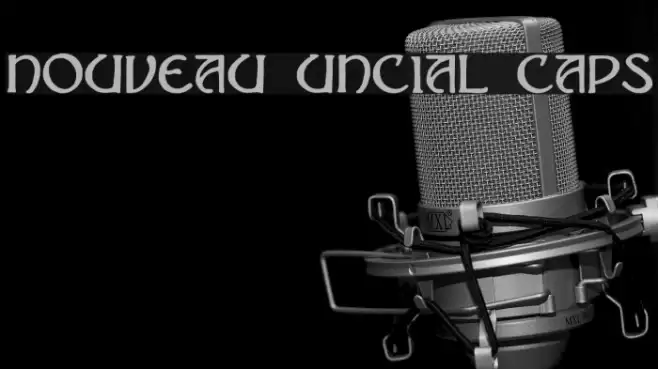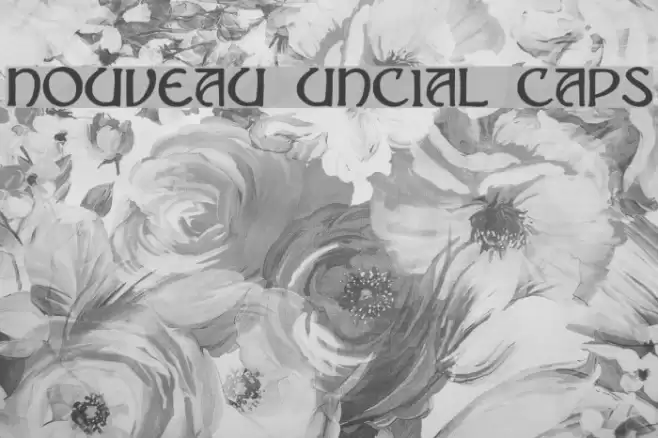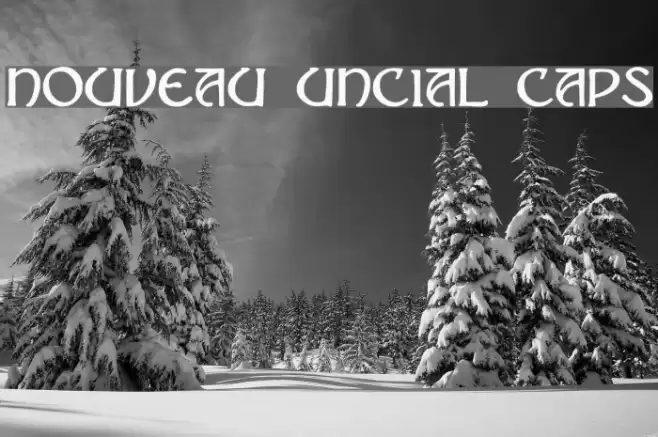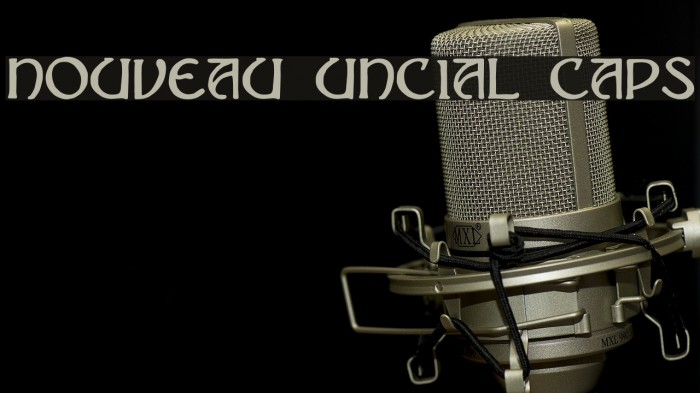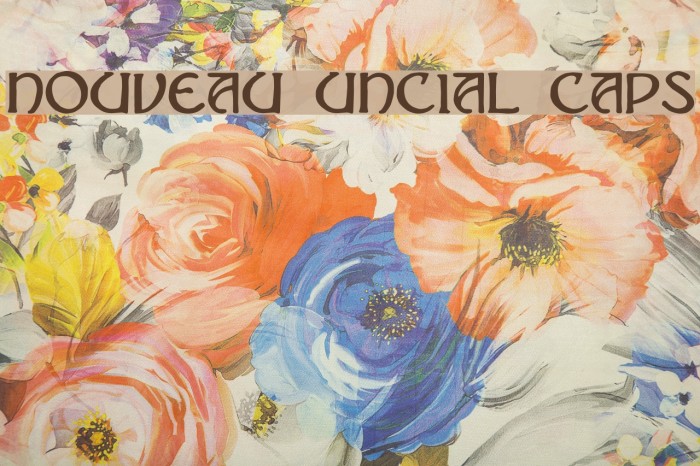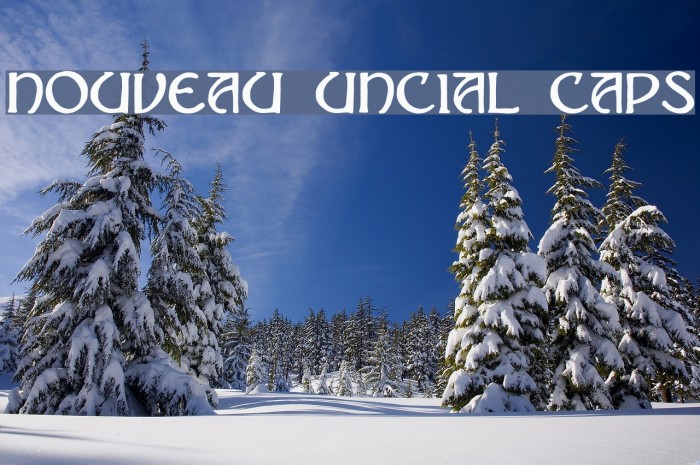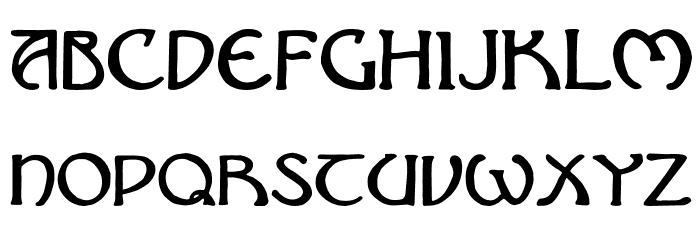
Nouveau Uncial Caps Font
Nouveau Uncial Caps Description
This font features a unique blend of traditional and modern elements, reminiscent of medieval script with a contemporary twist. The characters are bold and slightly condensed, with a distinct uncial style that gives it a historical yet fresh appearance. The strokes are consistent in weight, providing a uniform look across all letters. The rounded edges and flowing curves add a touch of elegance, making it suitable for projects that require a classic yet innovative feel. The font's design is both decorative and functional, offering versatility for various creative applications.
A modern uncial-style font with bold, rounded characters and a historical flair from Gothic fonts.
- Proposed Projects: Ideal for use in branding, book covers, historical themed designs, and decorative headings.